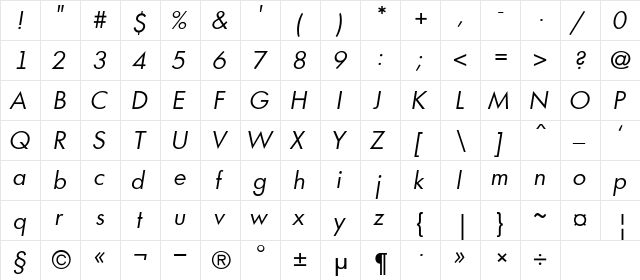
a_FuturicaBook Italic
Design Context for a_FuturicaBook Typeface
a_FuturicaBook channels digital-age aesthetics through its sharp, structured letterforms — ideal for brands that want to signal innovation. The dynamic lean of this cut emphasises speed and emphasis in any layout.